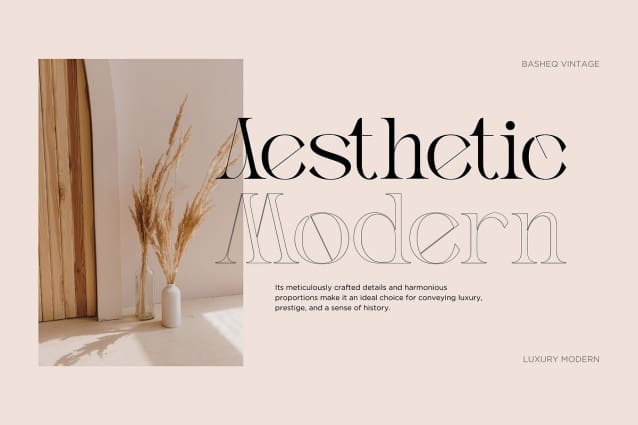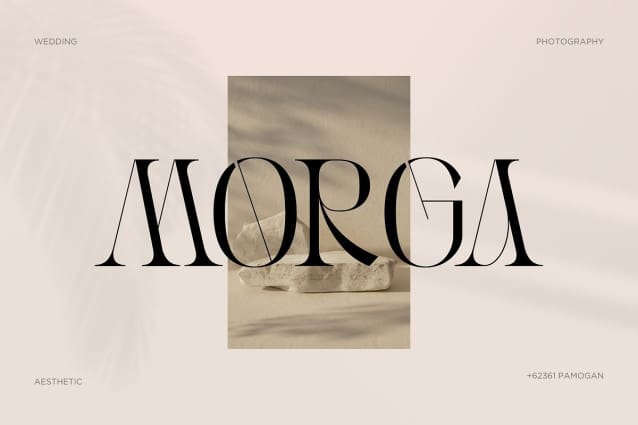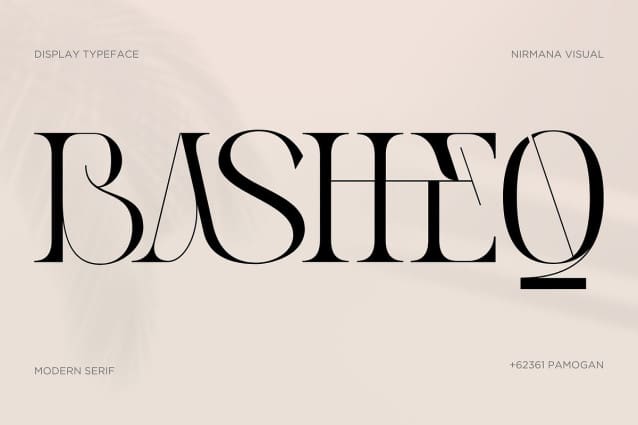
Basheq Font
Basheq Font an elegant serif font that exudes sophistication and refinement with a timeless and graceful design. Characterized by delicate serifs, this font boasts a delicate balance between thick and thin strokes, giving it an elegant and easy-to-read feel. The classic and ornate style of this font is perfect for high-end branding, editorial design and formal invitations, seamlessly blending tradition with a modern aesthetic.